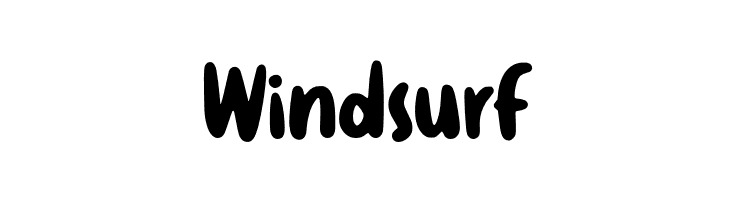
A whimsical, hand-drawn font with tall, narrow characters and thin strokes.
A classic serif font with a light, condensed style and elegant contrast.
Ultra-condensed, bold font with high contrast and modern appeal.
A refined serif font with elegant, elongated strokes and a classic yet modern appeal.
A bold, playful handwritten font with thick, rounded strokes.
A dynamic, windswept font with sweeping curves and sharp edges.
A bold, cursive font with flowing, connected letters and strong visual impact.
A bold, wind-swept decorative font with a playful and dynamic style.